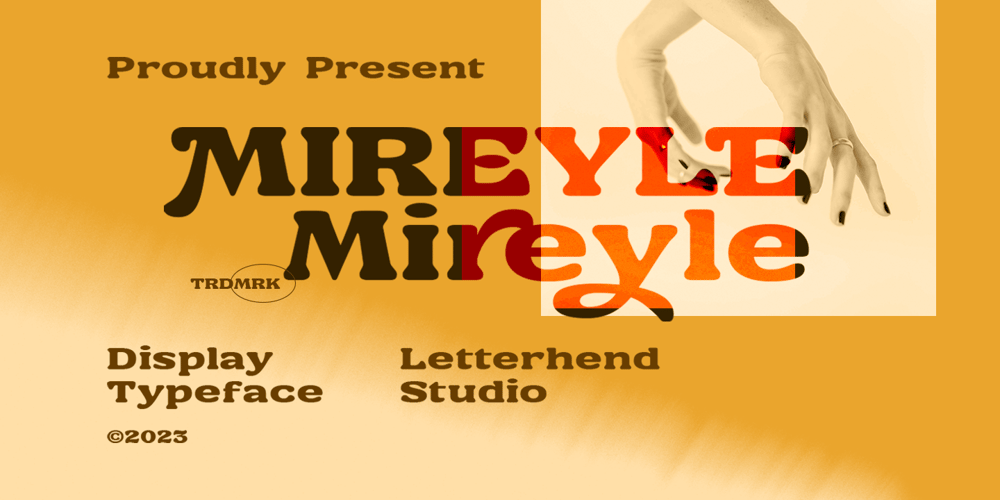
Mireyle Font Family was designed by Hendry Juanda and published by Letterhend. Mireyle contains 1 styles and family package options. Let Mireyle add a classic of personality to your designs! This bold font makes it ideal for a variety of design projects, including posters, invitations, greeting cards, logos, and more. Whether you’re creating a children’s book or designing a catchy brand identity, this font is sure to bring a right answer.Features : Uppercase & lowercase Numbers and punctuation Alternates & Ligatures Multilingual PUA encoded We highly recommend using a program that supports OpenType features and Glyphs panels like many of Adobe apps and Corel Draw, so you can see and access all Glyph variations.